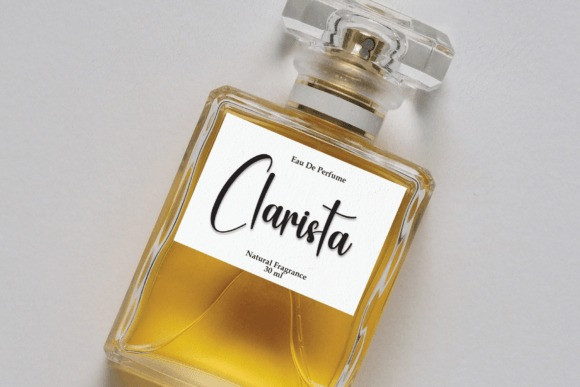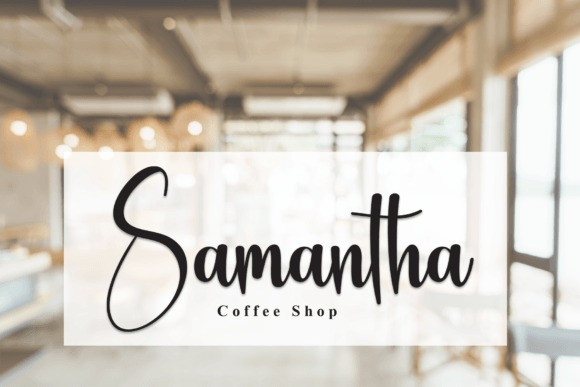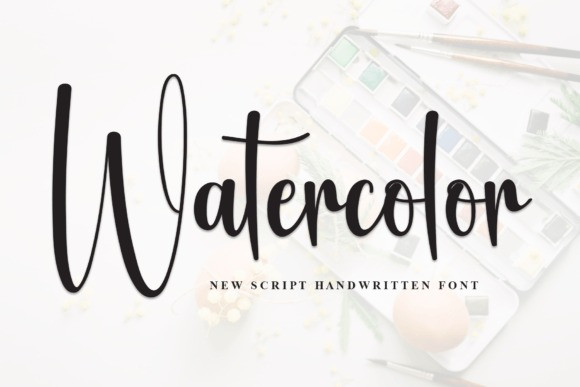
Watercolor Font
Watercolor Font is a charming handwritten font imbued with a sense of freshness and casual elegance. Its fluid strokes and organic lines evoke a laid-back vibe, making it perfect for various design projects. Whether used for branding, invitations, or social media graphics, Watercolor adds a touch of warmth and personality.